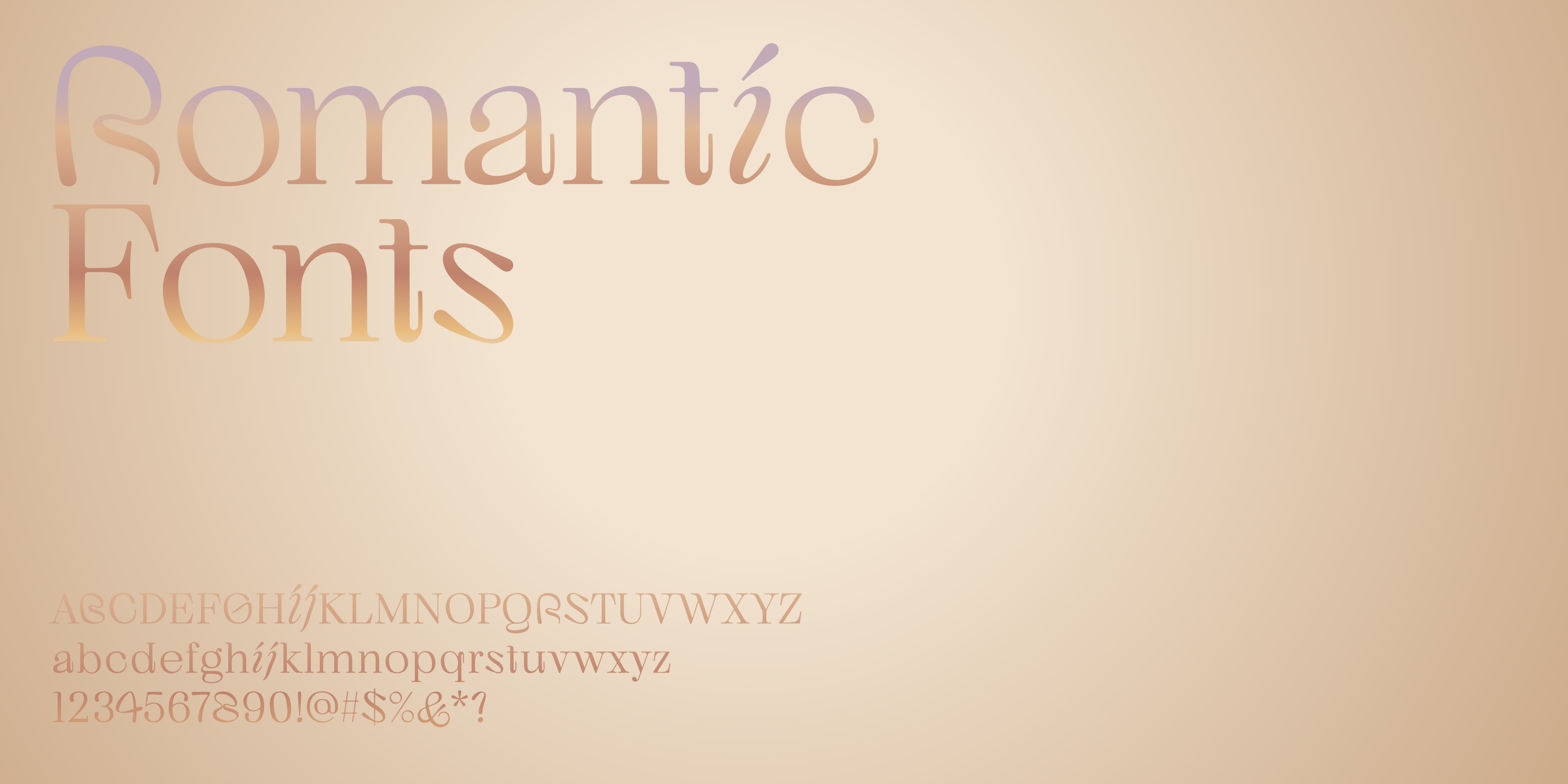
From vintage serif to modern, sans-serif, and high-contrast fonts, check out this best-of romance font collection to create designs that stand out.
Many fonts come in various font weights, often from very thin to very bold, but I prefer working with lighter weights when it comes to romantic-style design. They look more elegant, flowy, and refined.
However, most typefaces selected below are also available in bolder weights—an easy way to fine-tune your design message: The lighter you go, the more fragile the text (maybe the title of a relationship?) will come across, and the bolder in style, the sturdier and more solid the text you’re describing will appear.
Serif fonts for romance
Kijs Thin is part of the font family Kijs. Some of the typeface’s letters stand out because they’re designed in a script, cursive style. This feature gives the font a vintage, more natural look, making it a great display type for headlines and logos.
Quil Medium is the middle font weight of the font family. Quil’s terminals have a modern length and are cut instead of rounded (e.g., letter r), its serifs are short, and its strokes are those of a high-contrast text font. Pair this font with a medium-dark teal, beige, chestnut color palette to bring out the typeface’s Victorian character.
Bauhaus Soft is also a modern serif typeface, but the font weight I selected here is called ExtraBold. This style adds a heavy, natural feel to any romance title. The o is titled to the left, the upper-right stems are rounded, and its serifs are prominent, giving this font an organic and feminine look. This font also works well for book titles and food branding.
No-frills romance fonts, from handwritten to modern sans-serifs
Lace is a geometric script font in a constructed handwritten style. Its monolinear strokes make this typeface friendly and approachable. The Light font weight adds elegance, creating a loving and personal tone to wedding branding, including invitations, stationary, menus, and thank-you gifts.
Vole Light is more minimal in style than Lace. I prefer to use this typeface when set with tighter letter spacing to emphasize the filled-in counters. This feature gives this font an inky water look, as if the liquid used to write in this font is bleeding into the paper. Vole looks more personal when set in all lowercase but is great for branding in bolder in all uppercase letters.
Lace Rounded is—like the name says—a rounded version of Lace, listed above. This font has a couple of free styles that you can get on this site. I like this typeface because it looks personal, minimal, and compact at the same time.
Apex is a popular font family—it looks modern due to its pointy tips, e.g., the letters M and V. Apex Light is paired with Kijs Light for its ampersand symbol to add a romantic character into the more minimal title layout. When set on a white, pink, and red palette, these fonts make the best rom-com movie title branding.
Finally, a romantic font classic is Roma, here set in the “Light” font weight. Roma is considered a humanist-style contrast font with thin and thick letter strokes. This typeface is feminine and great for Valentine cards and jewelry and beauty princess branding.